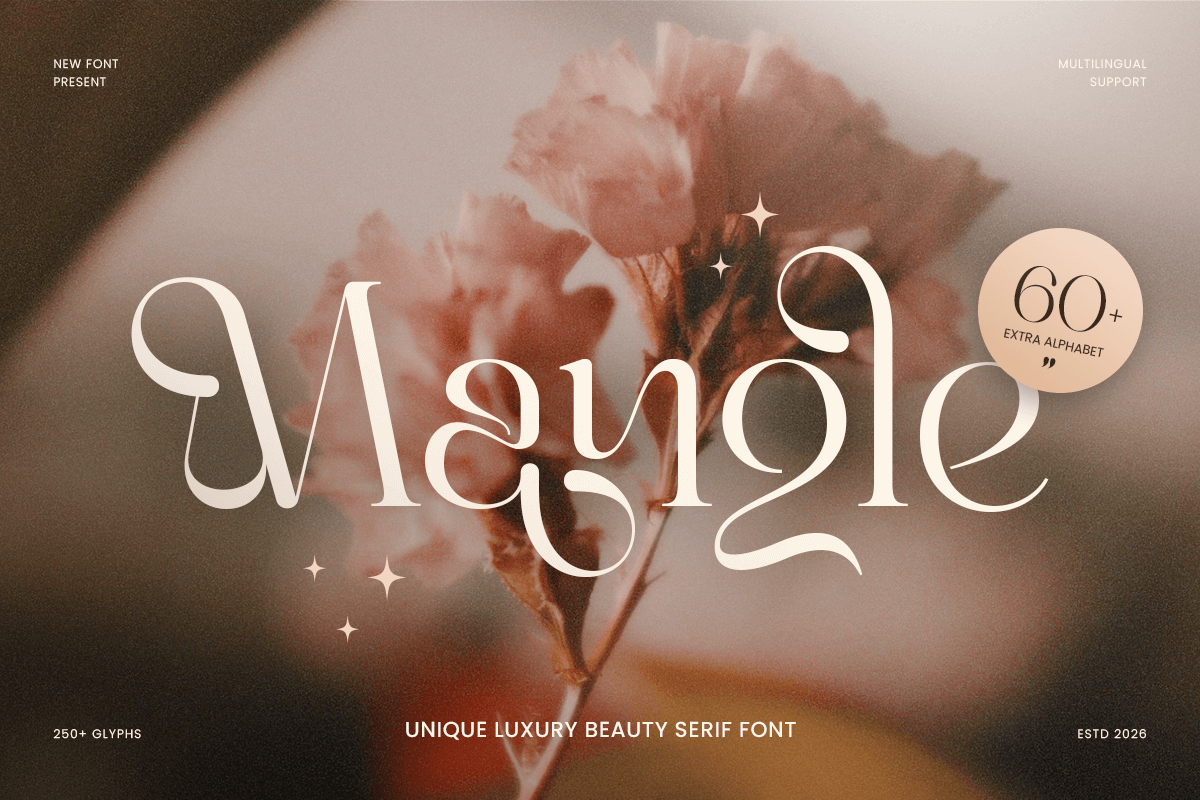
Mangle
-Modern Editorial Beauty Serif Font
Mangle - Modern Editorial Beauty Serif Font
Mangle is a unique luxury beauty serif font designed to express refined elegance with a distinctive high-end personality. Featuring graceful serif details and stylish proportions, this typeface creates a premium aesthetic that feels sophisticated, feminine, and instantly brand-ready.
Created for beauty-focused branding, Mangle works beautifully across logos, wordmarks, skincare packaging, cosmetic labels, website headers, editorials, social media campaigns, invitations, and upscale marketing materials. Its unique serif character adds a signature touch that makes brand identities feel exclusive while maintaining clean readability across both print and digital platforms.
Whether you’re developing a luxury beauty brand, launching a boutique skincare line, crafting a fashion identity, or designing elegant editorial layouts, Mangle provides a refined serif foundation that elevates your typography with confidence, softness, and timeless appeal.
Inspiration Behind Mangle
Mangle is inspired by contemporary beauty branding and luxury editorial typography—where elegance, balance, and distinctive serif styling define premium communication. The design focuses on unique character shapes and refined rhythm to support feminine luxury identities with a modern, polished presence.
Mangle Font Features:
• Unique luxury serif letterforms optimized for beauty branding
• Elegant structure with feminine, high-end visual character
• Perfect for logos, packaging, editorials, and premium headlines
• Luxury beauty logos and feminine brand identity systems
• Skincare, cosmetics, fragrance, and boutique branding
• Editorial layouts, magazine covers, and fashion headlines
• Premium packaging, labels, invitations, and elegant stationery
• Social media campaigns, websites, and upscale marketing visuals
Elevate your beauty branding with Mangle—a unique luxury serif font crafted for elegant, premium identity design. ✨